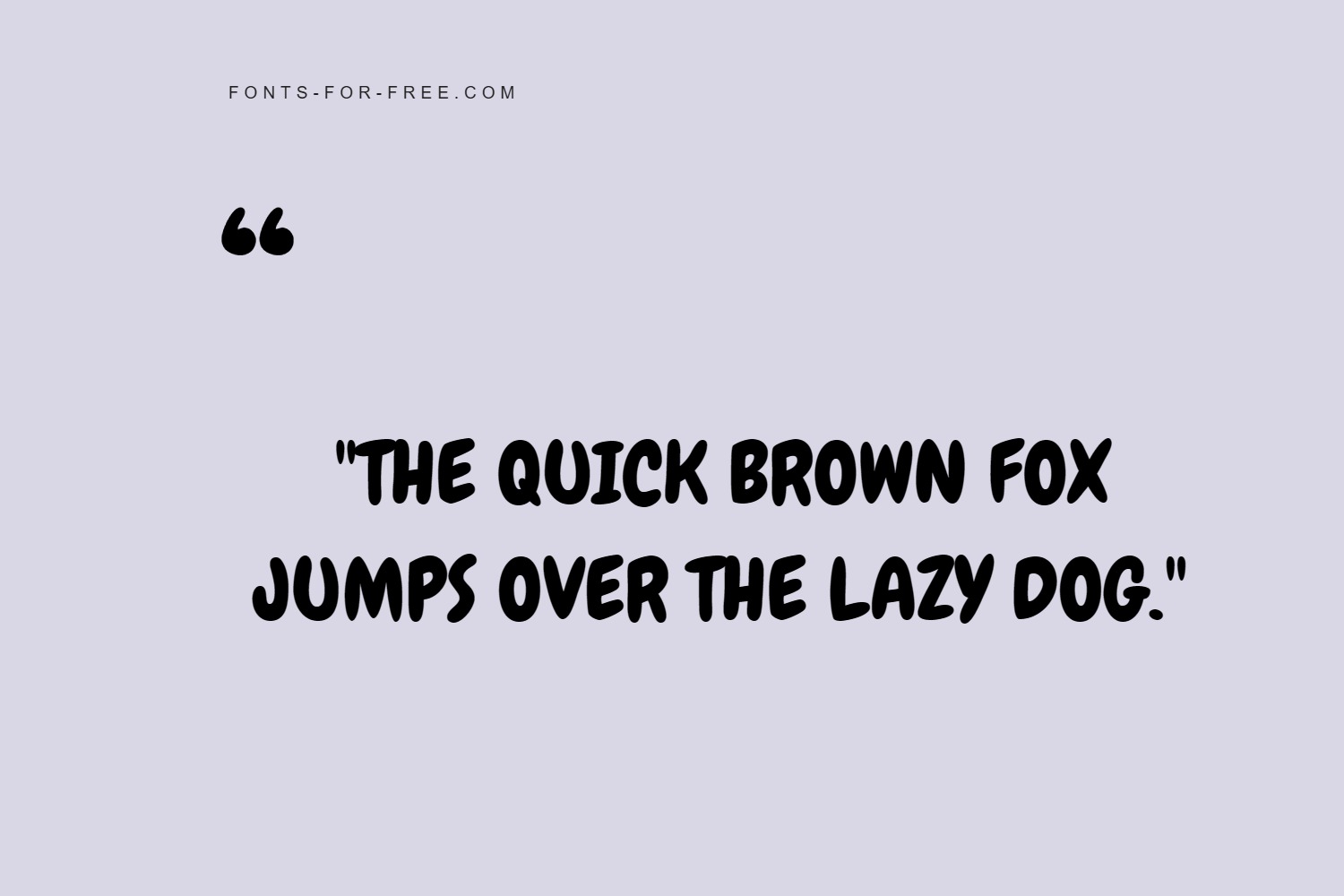
Chewy
Chewy is a fun display font you can really sink your teeth into—bold, bouncy, and packed with personality. Unlike boring, “tasteless” typefaces, this one keeps its playful flavor in every letter, making your designs feel lively and memorable. Its chunky shapes and friendly curves work perfectly for kid-friendly branding, snack or dessert packaging, cartoon titles, posters, stickers, and social media content. Chewy looks best at medium to large sizes where the soft, juicy style can shine. It also pairs nicely with simple sans serif fonts for balance. If you want something fresh, sweet, and instantly eye-catching, Chewy is a great choice.